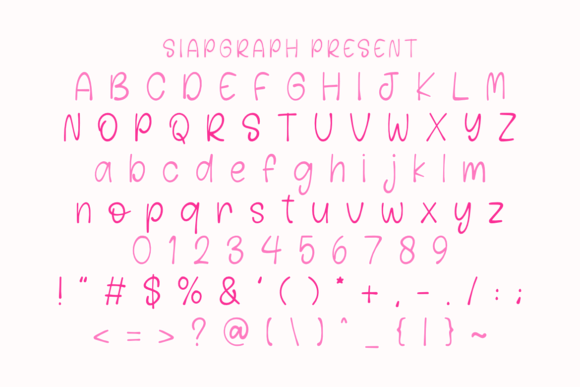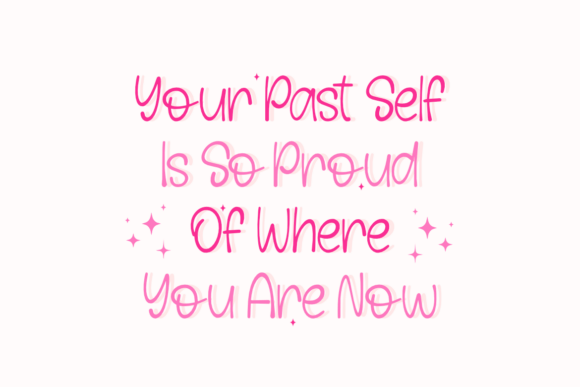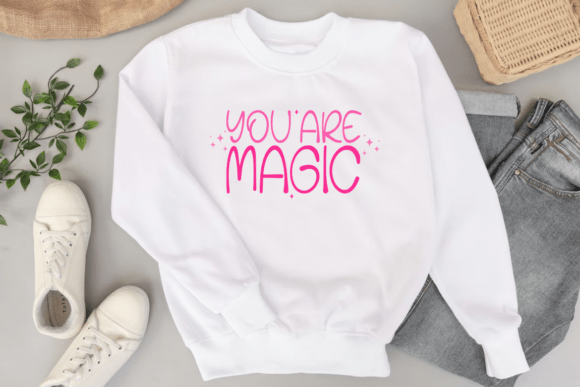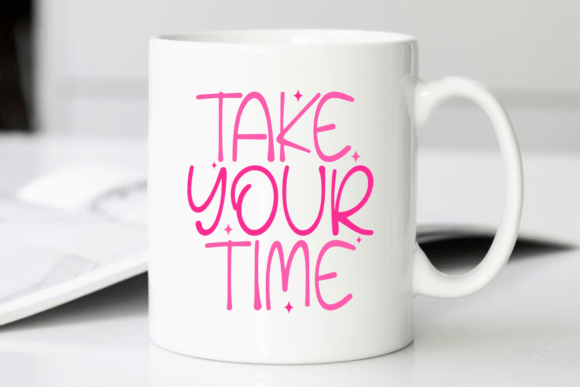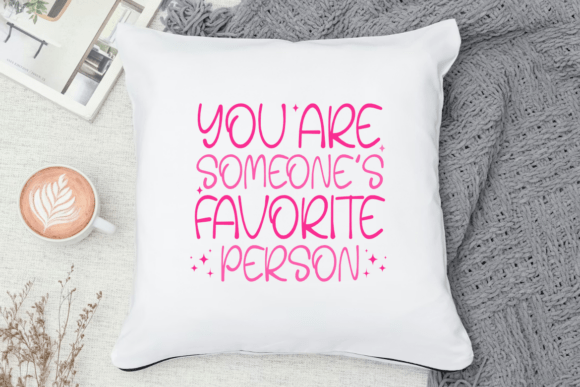
Introduction to Lover Chunky Font
Bring your ideas to life with Lover Chunky, a charming and cute handwriting display font that exudes playfulness.
Its soft curves and bold appearance are perfect for creating eye-catching headlines, posters, social media graphics, and branding Add a dreamy touch to your designs with this delightful font thatโs both fun and versatile.